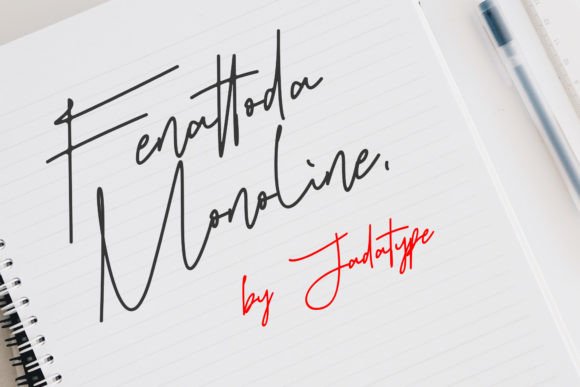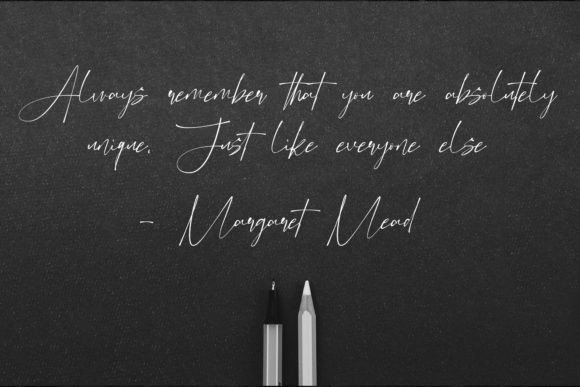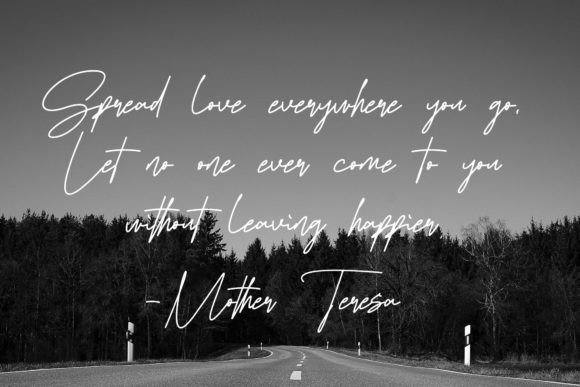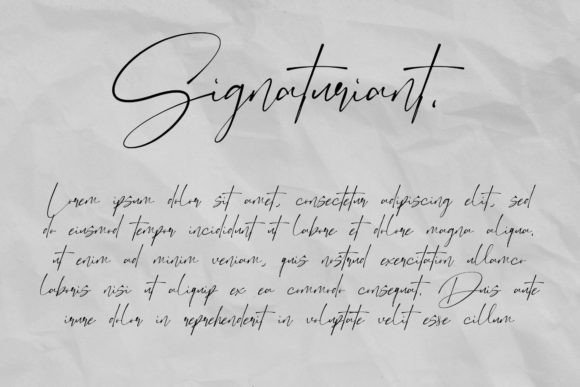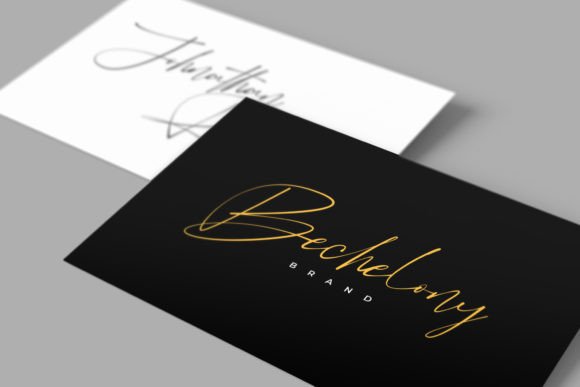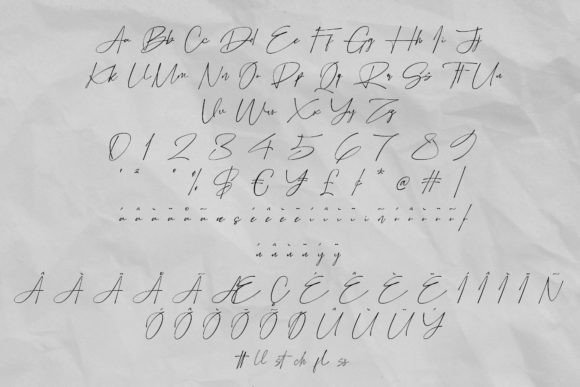
Introduction to Fenattoda Font
Fenattoda is a modern and stylish script font that oozes charm and personality.
Its elegant and flowing strokes create a unique look that is perfect for branding, logos, and social media graphics Fenattoda is a versatile typeface that adds a touch of sophistication and character to any project.